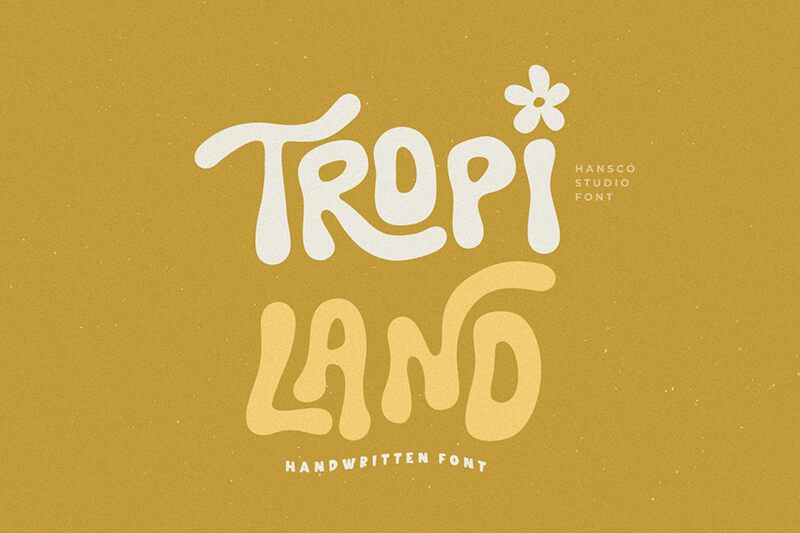
Go with the flow using this bold and groovy display font. Tropi Land is a bold groovy type from HansCo.
It’s perfect for eye-catching advertisements, retro designs, branding, poster titles, magazines, brochures, logos, banners, packaging designs and so much more.
Tropi Land